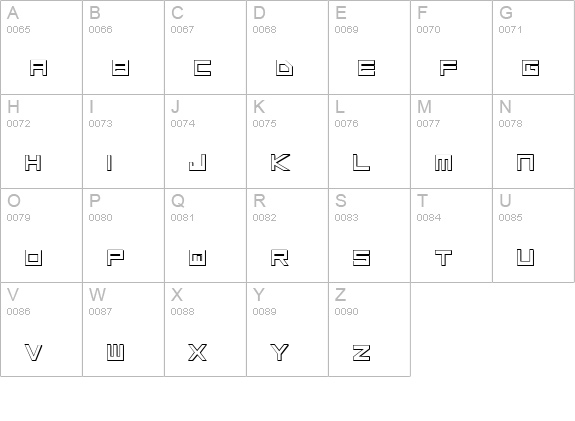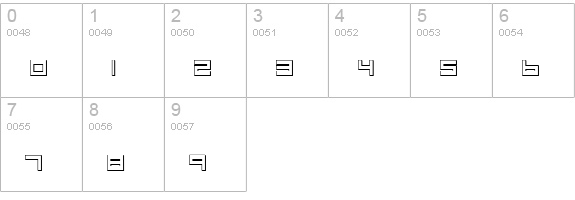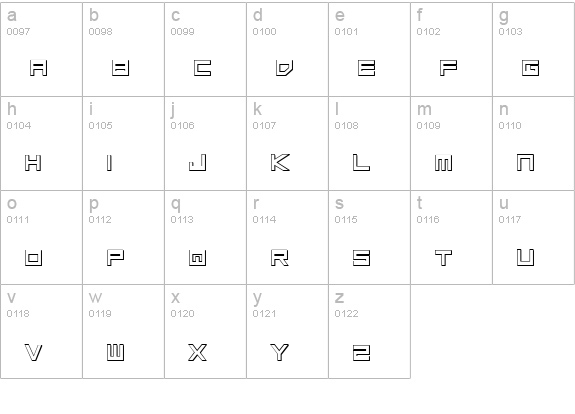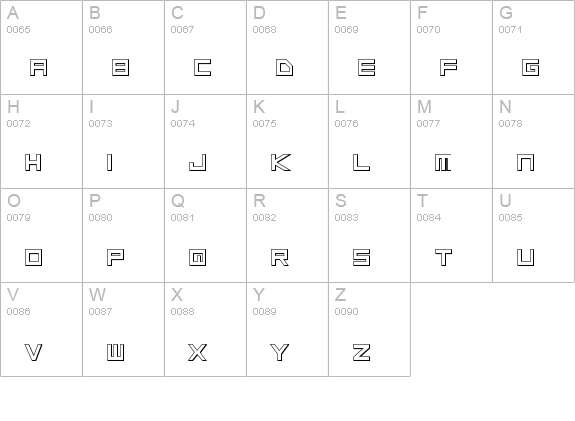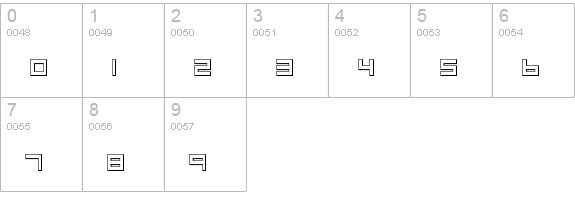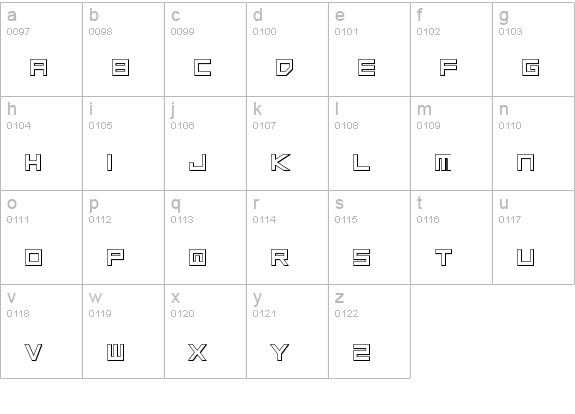
Low Gun Screen Bold 3D is a strong, high-contrast variant in the Low typeface family \xE2\x80\x94 well suited to headlines, attention-grabbing titles, and strong calls-to-action.
Discover the bold and dynamic Low Gun Screen Bold 3D font, designed to make a powerful statement in your projects. This striking font features sharp edges and a futuristic 3D effect, creating a modern and edgy look that demands attention. Perfect for headlines, posters, and branding materials, Low Gun Screen Bold 3D font exudes confidence and creativity. Best of all, this unique font is available for free download at FontsMarket.com. Don't miss out on the opportunity to add this eye-catching typeface to your design arsenal and elevate your projects to the next level. Download Low Gun Screen Bold 3D font today and unleash your creativity with this versatile and impactful font.